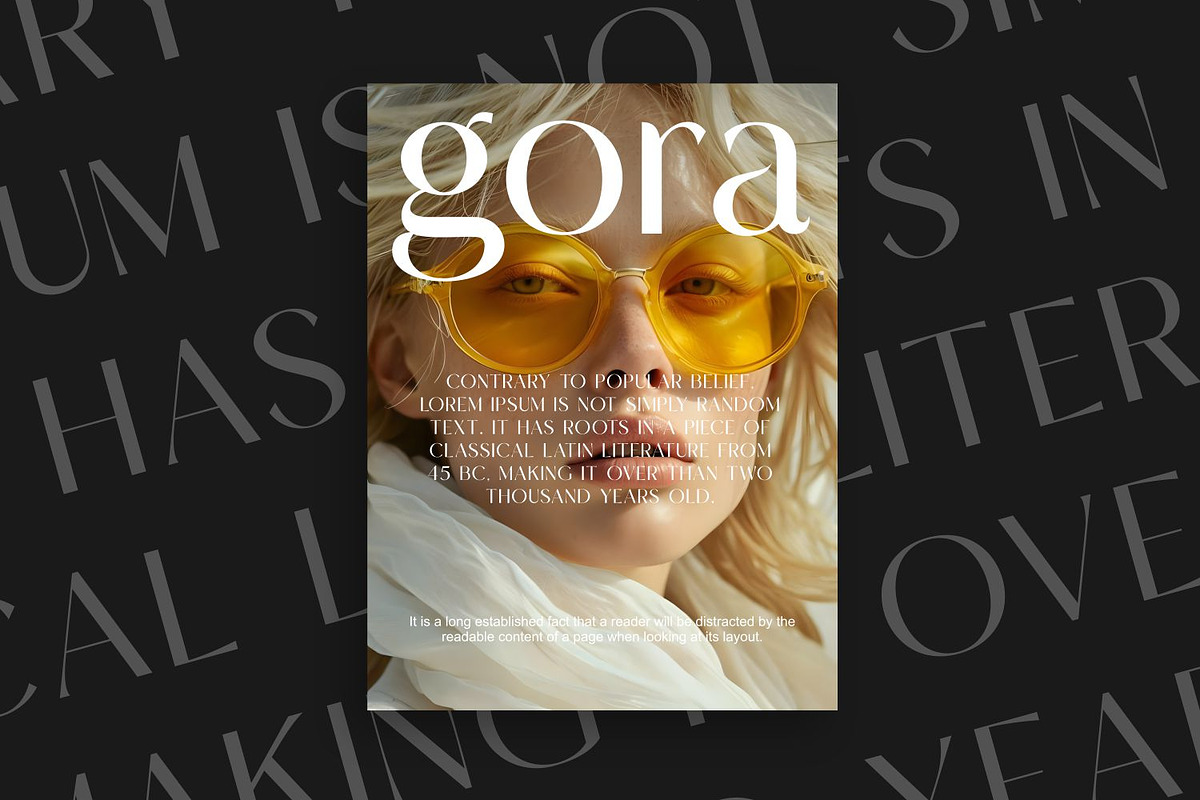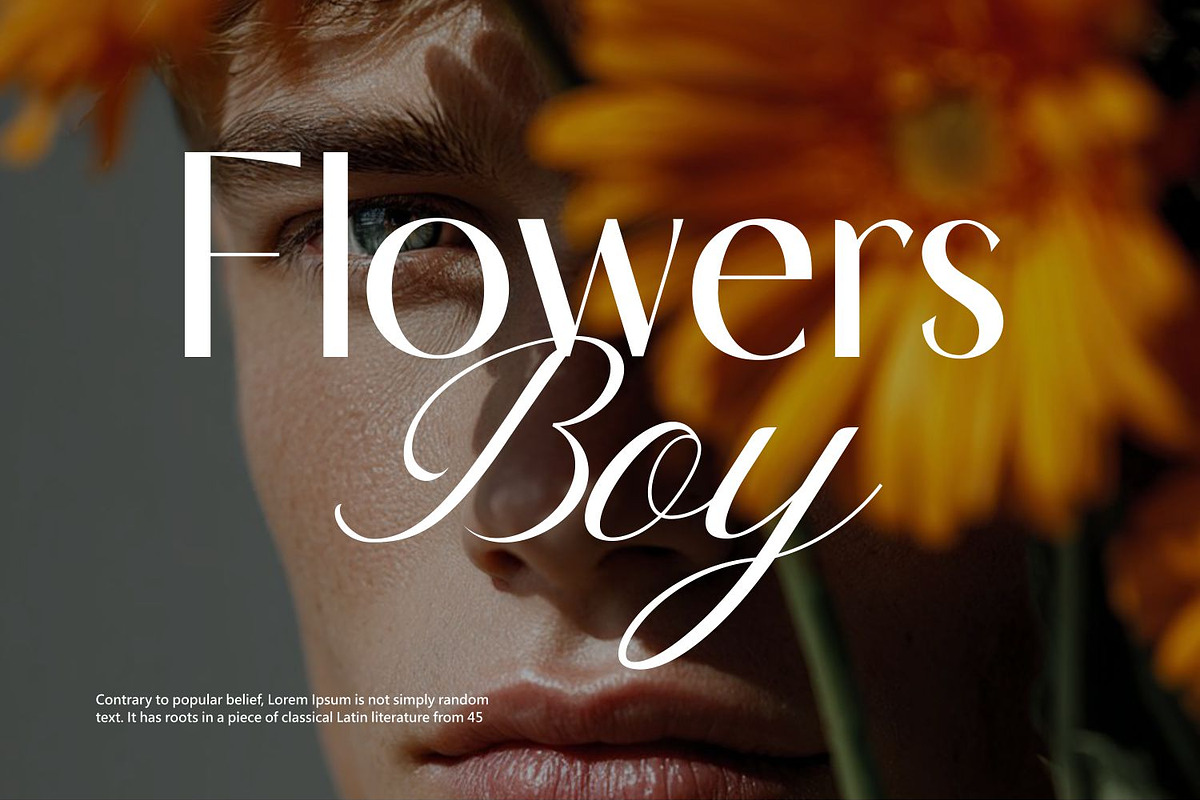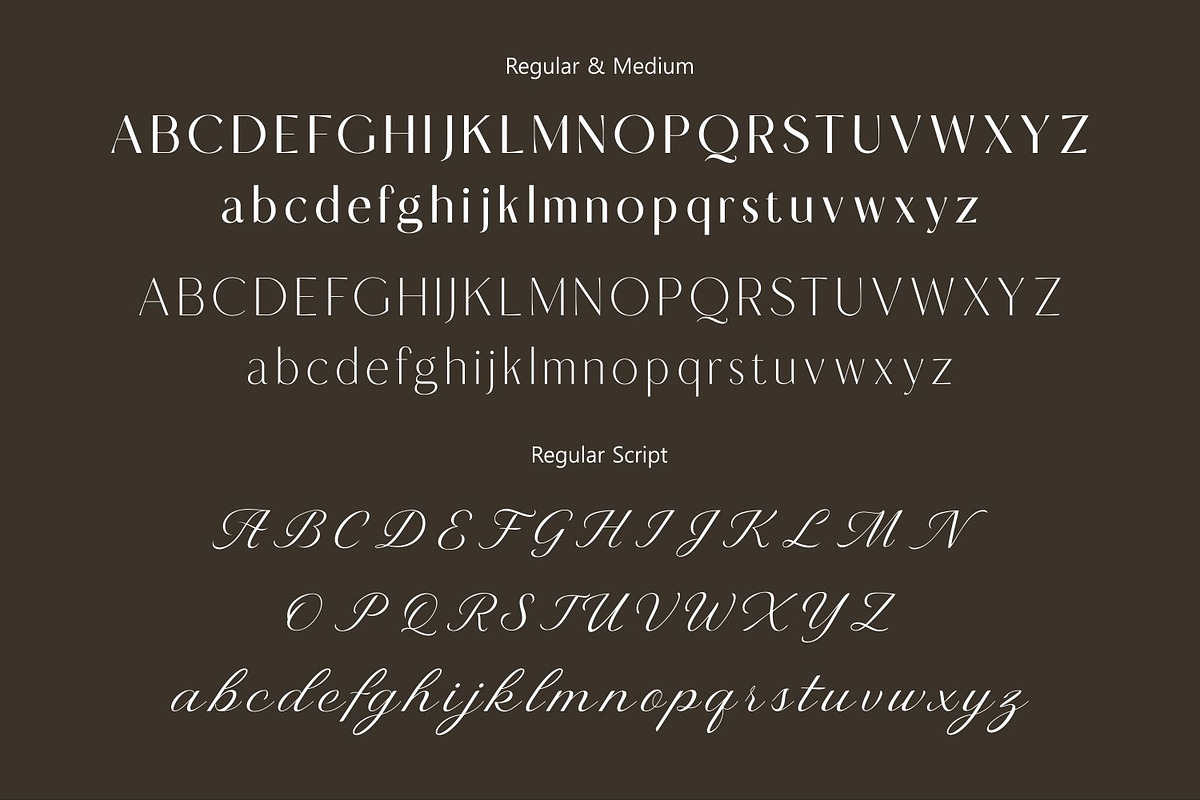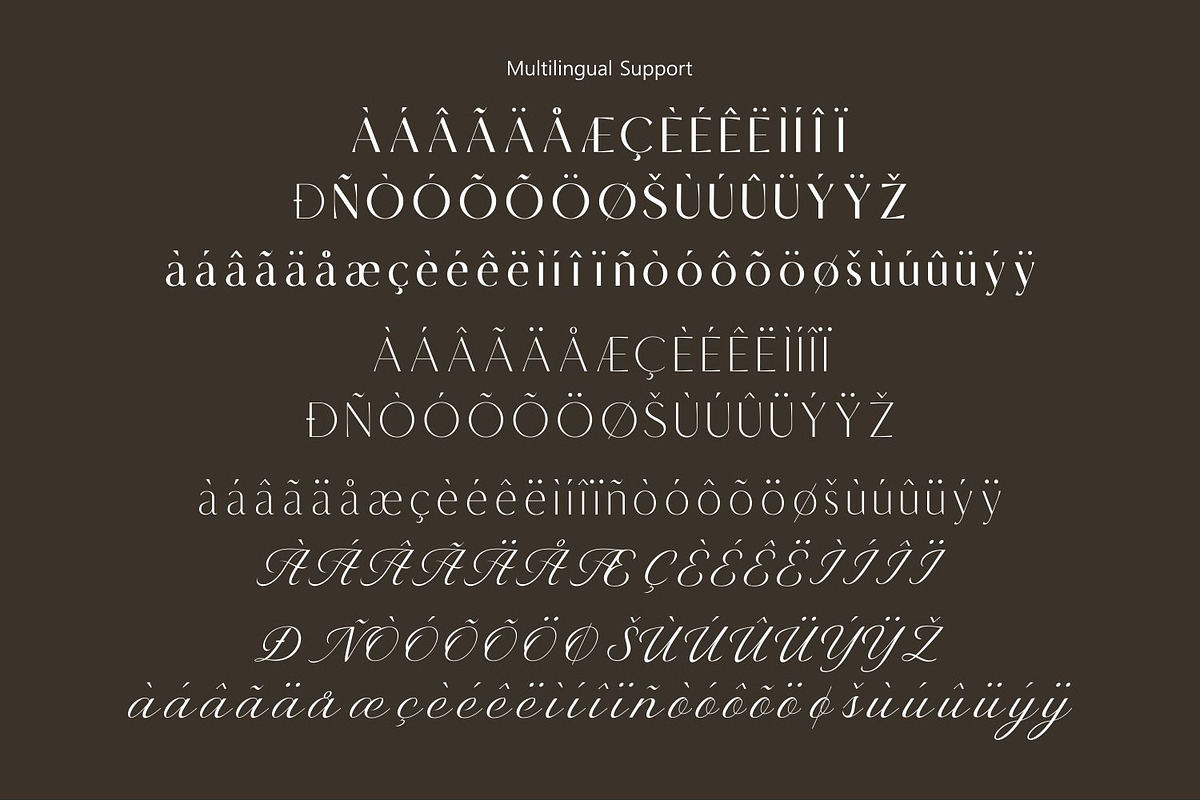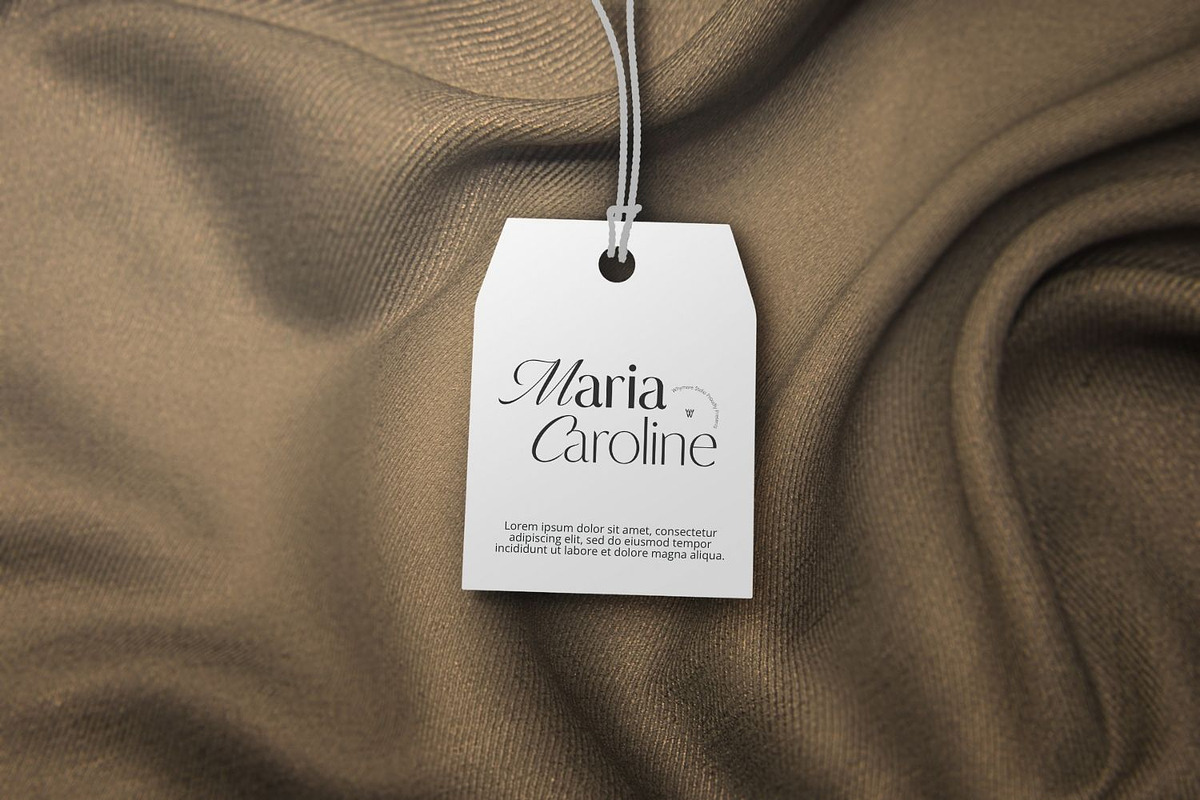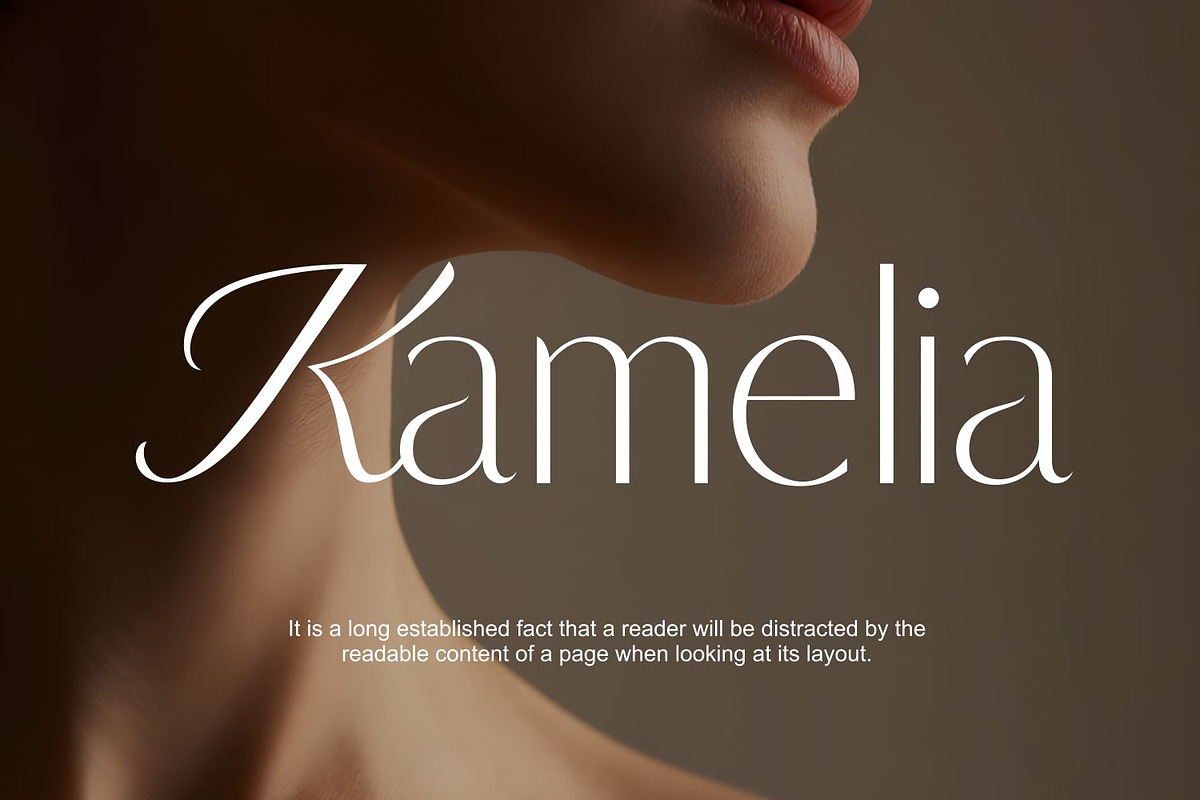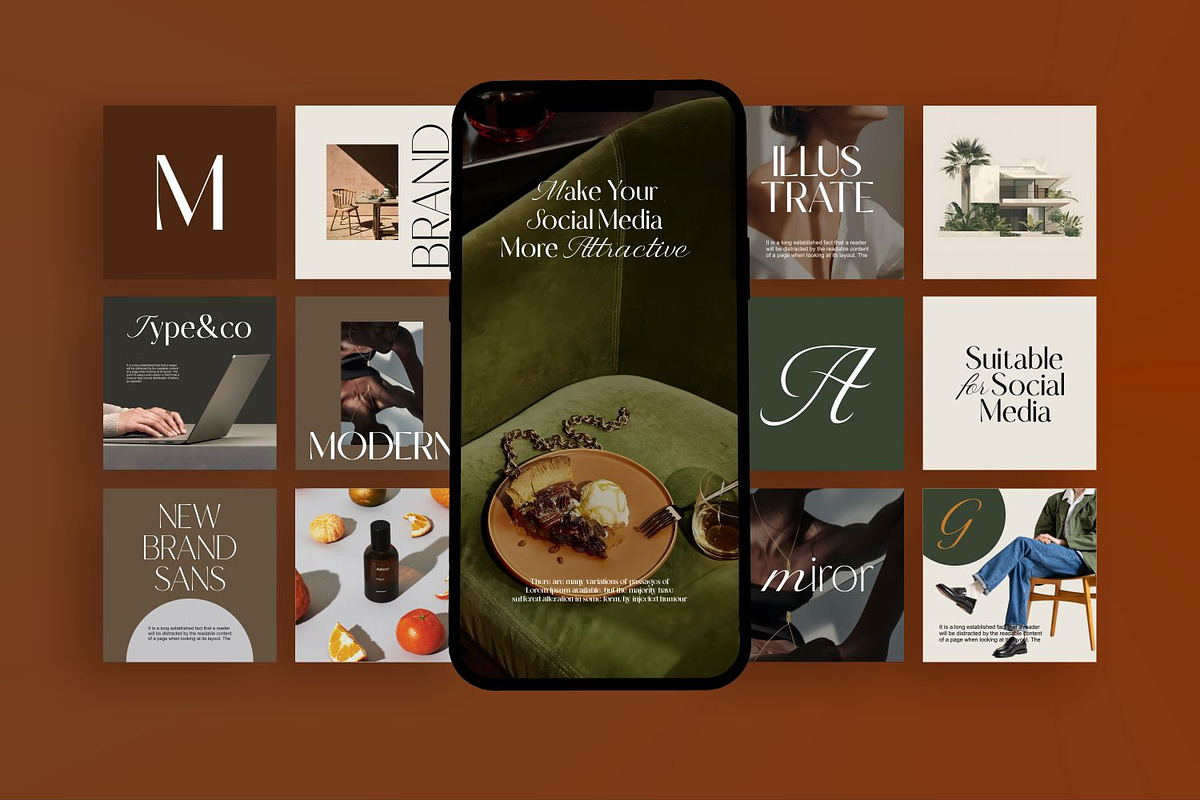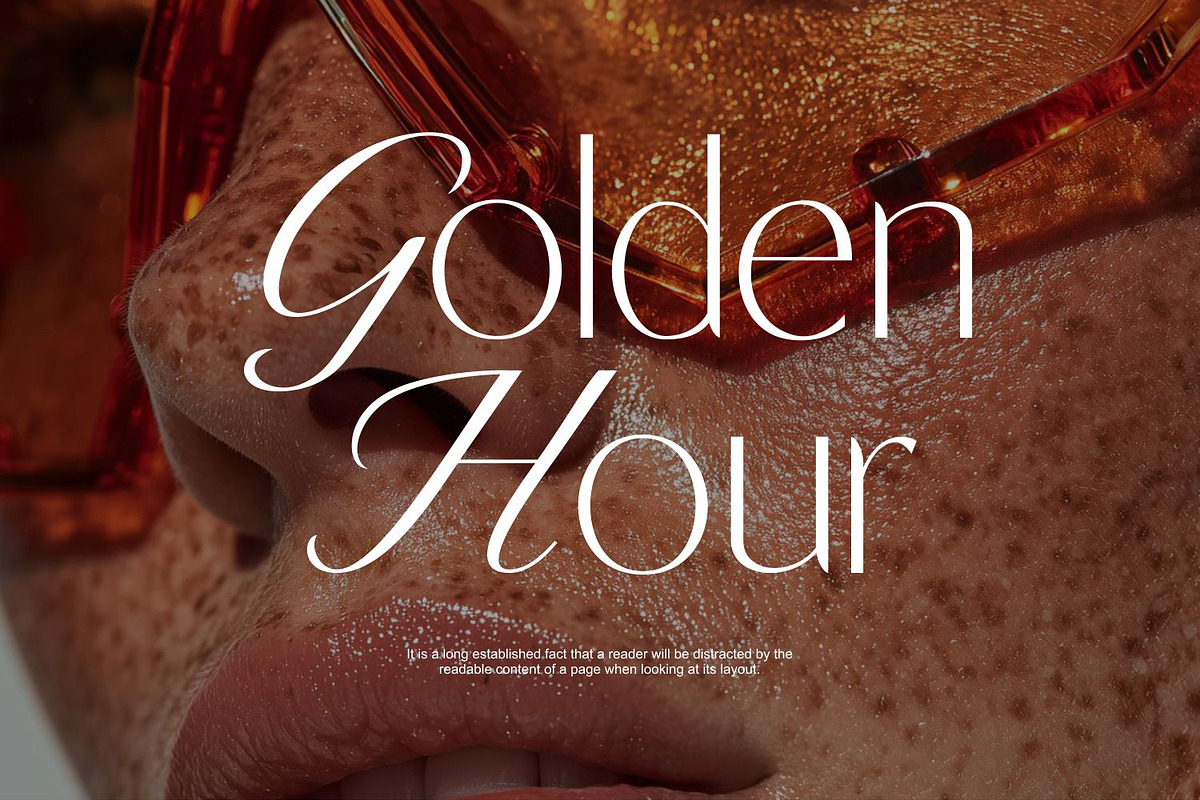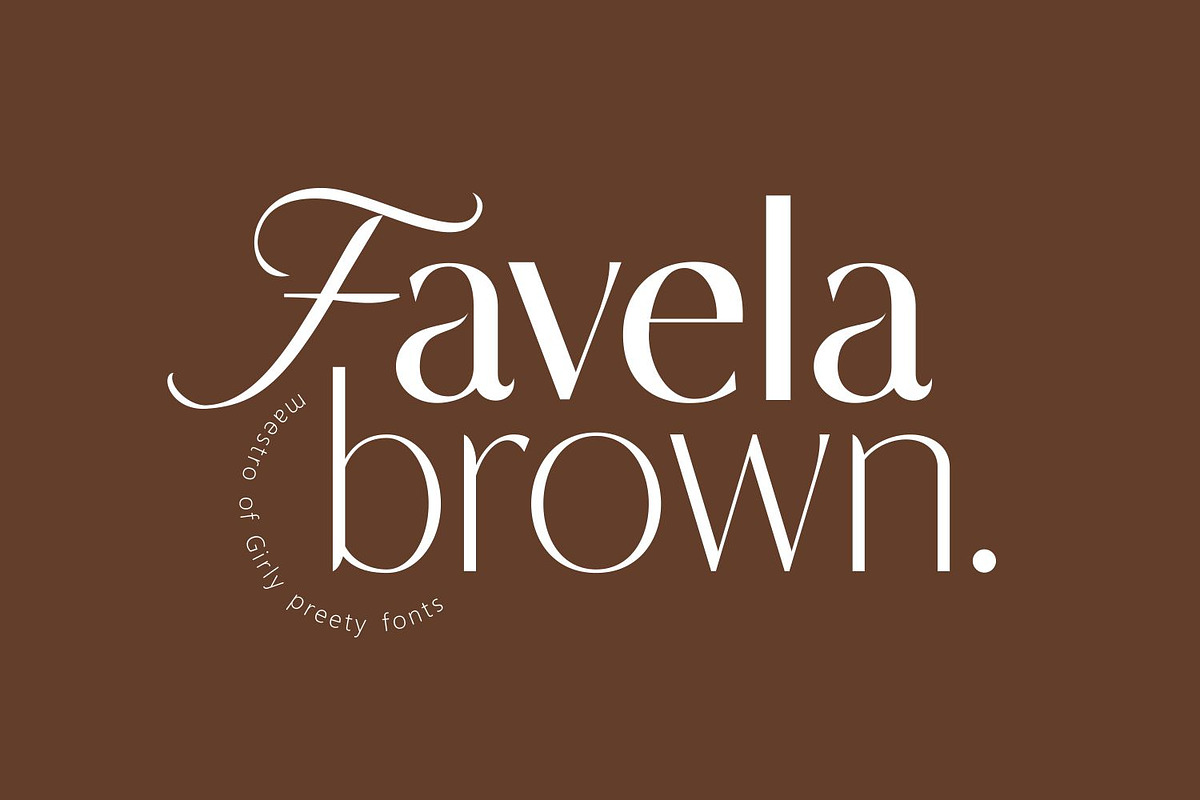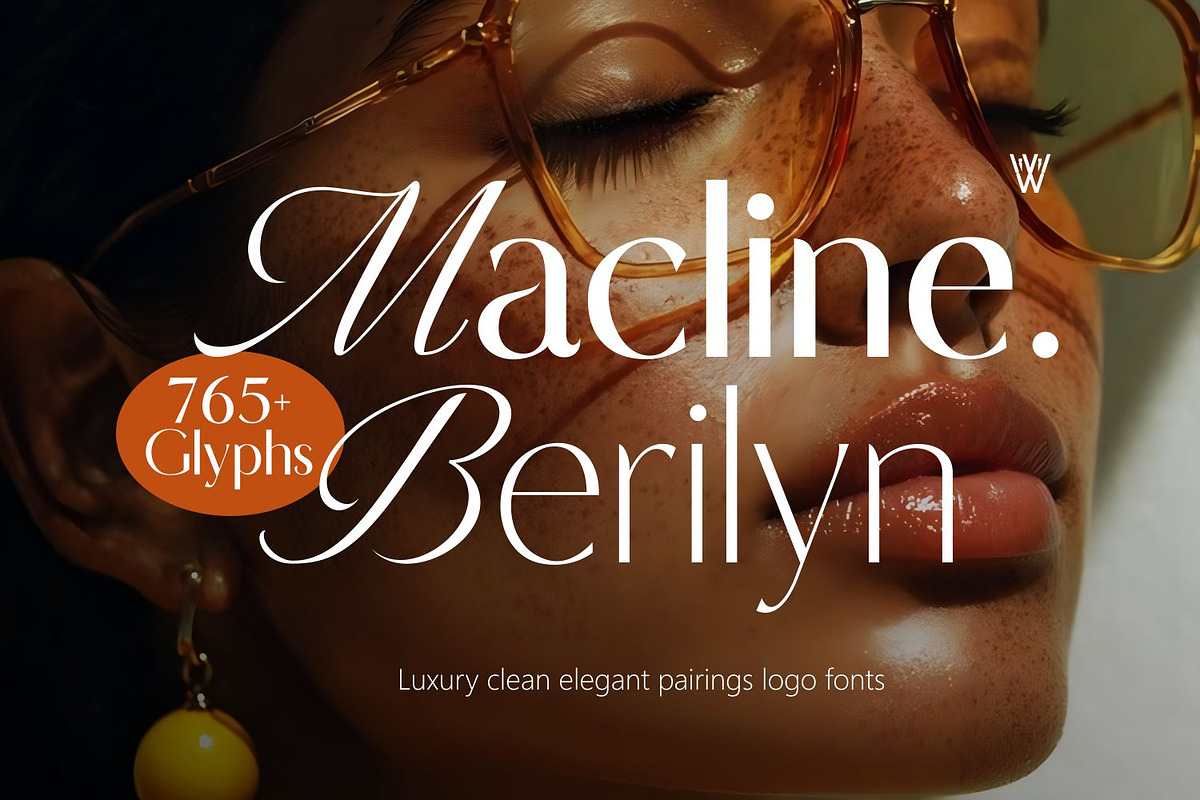
Macline Luxury clean elegant pairing
Macline Berilyn is a luxury serif font duo that combines timeless sophistication with a modern touch. Featuring refined letterforms, elegant ligatures, and balanced proportions, this font brings a clean and stylish aesthetic to any design.
Perfect for premium branding, high-end logo design, fashion editorials, magazine headlines, and packaging that demands elegance. Every curve of Macline Berilyn was crafted to deliver exclusivity, confidence, and visual harmony — ideal for designers aiming to create unforgettable brand identities.
✨ Features:
Elegant serif and modern script combination Beautiful ligatures and alternates Clean, stylish, and sophisticated look Ideal for logos, magazines, packaging, and luxury branding